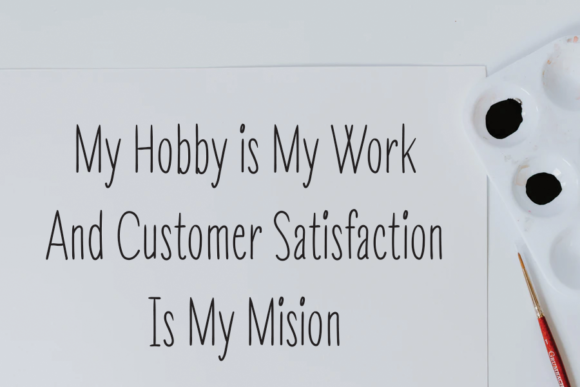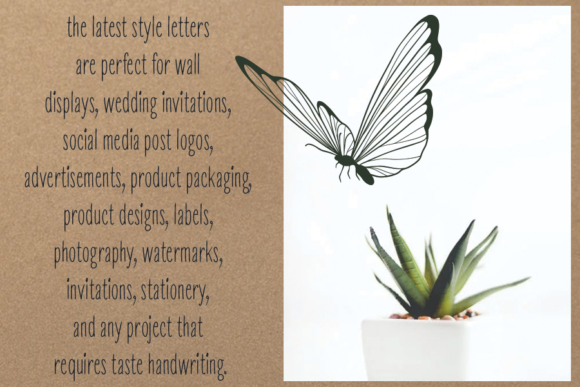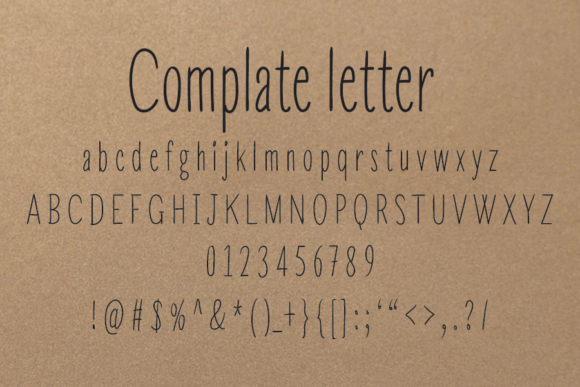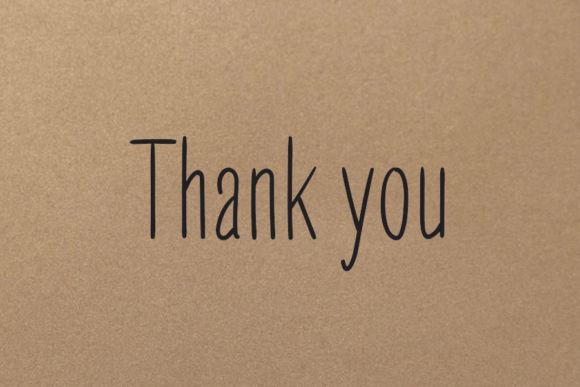
Introduction to Minimallove Font
You know that feeling when you’re working on a creative project and everything just comes together? The colors, the layout, the typography – it’s all perfect. For designers, this moment is what drives us to keep pushing the boundaries of what’s possible. And for those moments, we need the right tools. That’s where the Minimallove Font comes in.
This delicate and simple handwritten font is a game-changer for any design project. With its natural and unique style, the Minimallove Font is incredibly versatile, making it a valuable addition to any designer’s toolkit. Whether you’re working on a free download, a high-quality print project, or a digital design, this font is sure to bring a touch of elegance and sophistication to your work.
Key Features of Minimallove Font
- Unique and elegant typography with a minimalist aesthetic, perfect for modern designs.
Honest Review: Minimallove Font
I recently came across the Minimallove Font, and I’m excited to share my thoughts on this design resource. As a designer, I’m always on the lookout for high-quality fonts that can elevate my creative projects.
- ✨ The Minimallove Font is a beautiful, elegant script font that’s perfect for creative projects that require a touch of sophistication.
Any limitations:
- ⚠️ The Minimallove Font may not be suitable for projects that require a bold, dramatic font. It’s more suited for elegant, refined designs.
- ⚠️ Some users may find the font a bit too minimalist, which could limit its use in certain creative projects.
Overall impression:
I’m really impressed with the Minimallove Font. It’s a high-quality design resource that’s perfect for designers who want to add a touch of elegance to their creative projects. While it may have some limitations, I think it’s a great addition to any design toolkit.
Tips for Getting the Most Out of Minimallove Font
To get the most out of Minimallove Font, use it on a transparent background to create a clean and minimalist look. This font is perfect for creating simple yet effective designs for your creative project.
Minimallove Font is commonly used in various design projects such as logos, brochures, business cards, and social media graphics. Its simple and clean design makes it a popular choice for designers who want to create a professional and modern look.